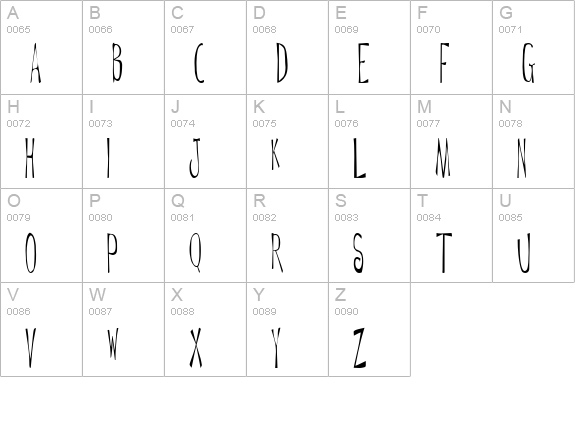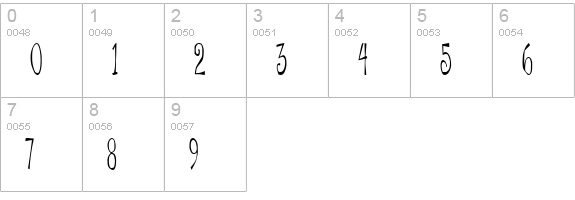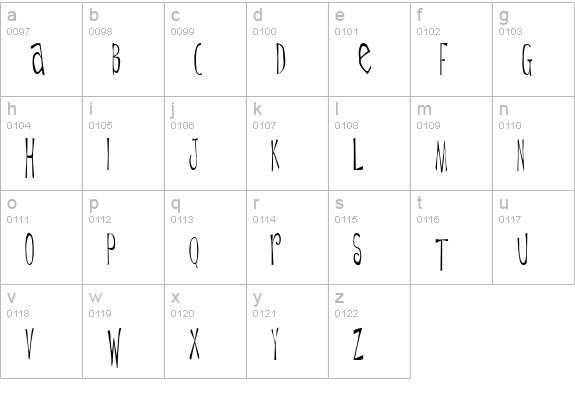
Daytripper Plain Font Details
Daytripper Plain font is a versatile and stylish typeface that combines modern simplicity with a touch of elegance. Its clean lines and classic design make it perfect for a wide range of projects, from branding to web design. This font exudes a sense of sophistication and professionalism, making it an excellent choice for any creative endeavor. What sets Daytripper Plain font apart is that it is available for free download at FontsMarket.com. This means that you can easily access this high-quality font without any cost, making it a valuable addition to your font collection. With its timeless appeal and effortless charm, Daytripper Plain font is sure to enhance any project and leave a lasting impression on your audience.